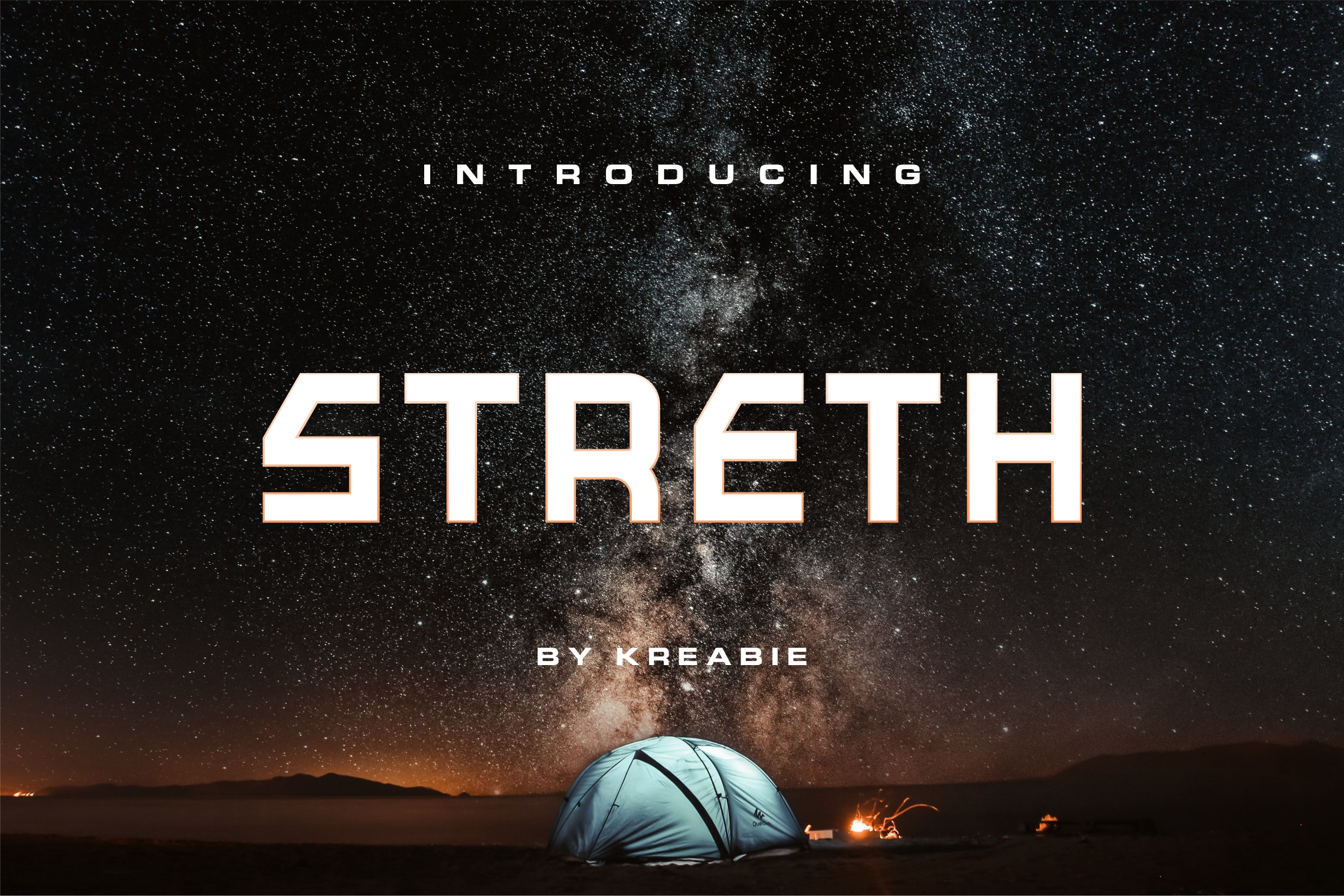
STRETH FONT
STRETH Its unique and strong style makes it stand out from other fonts, making it perfect for anyone who wants to make a statement.,The font is suitable to use for many occasion such as game, fashion, science music, movie title, brand, technology, space and many more.